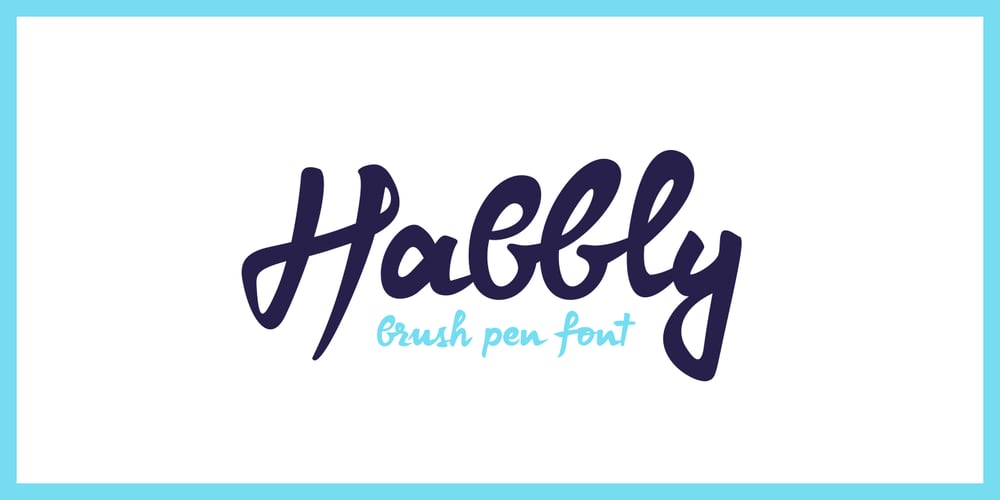
Habbly
Habbly font
Habbly Font Family was designed by Robert Corseanschi and published by Robert Corseanschi. Habbly contains 1 styles and family package options. Habbly is a handwritten brush pen font with smooth ligatures and alternates which makes it look more realistic and natural. The font has a slight bold feeling. In order to get the most out of this typeface be sure to use a program that has opentype capabilities. Suitable for wedding invitations, coffee packages, badges, logos, apparel, stationery, magazines, letterpress, film, books and many others.